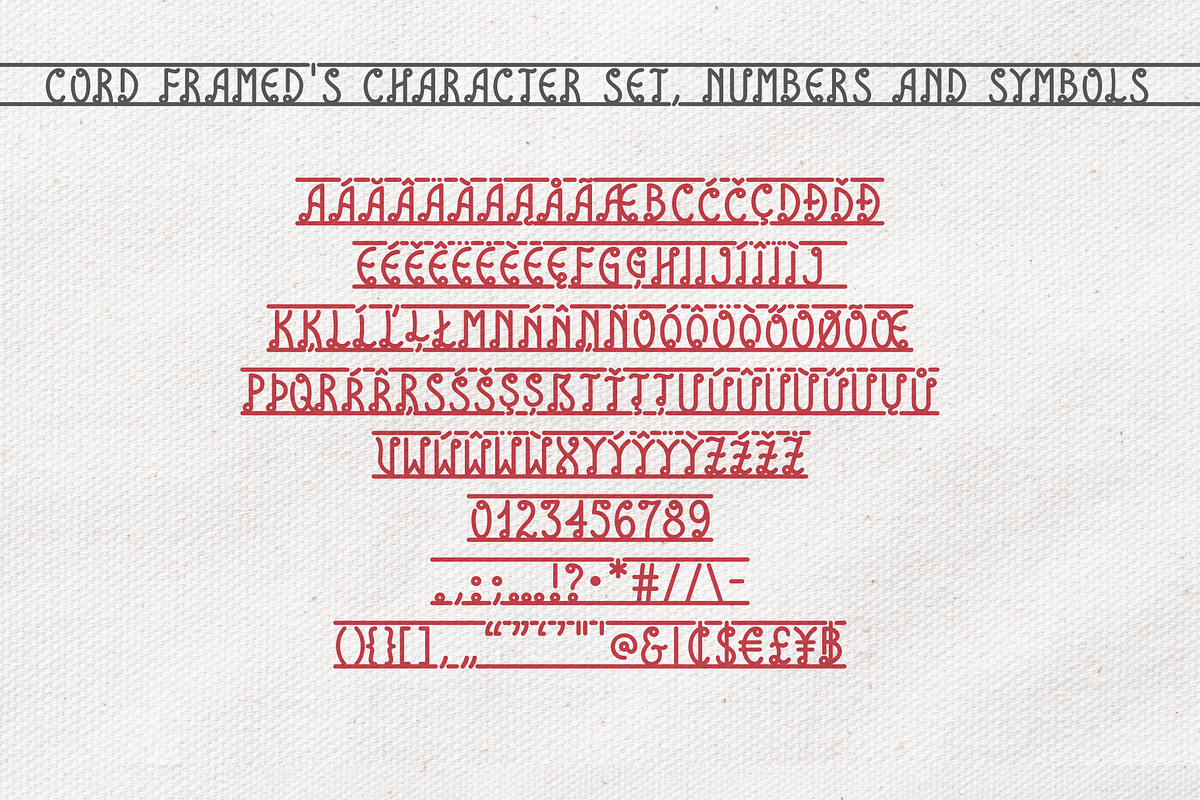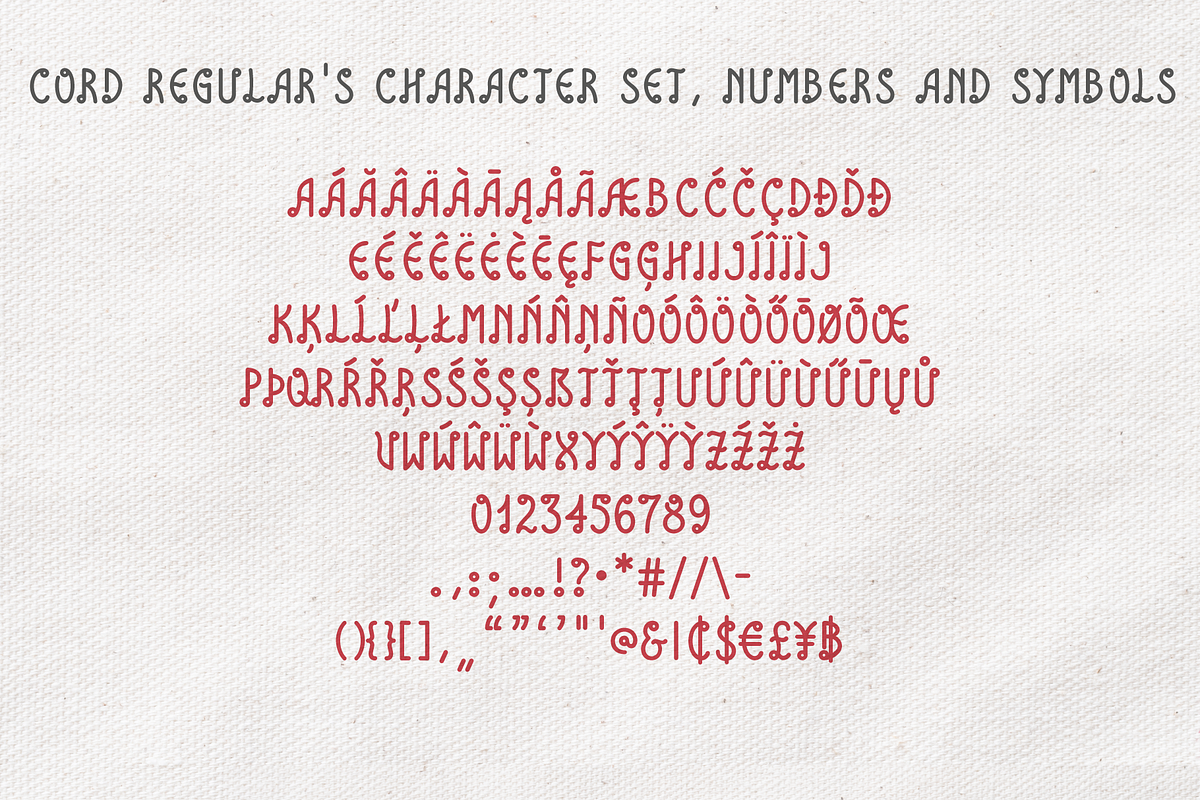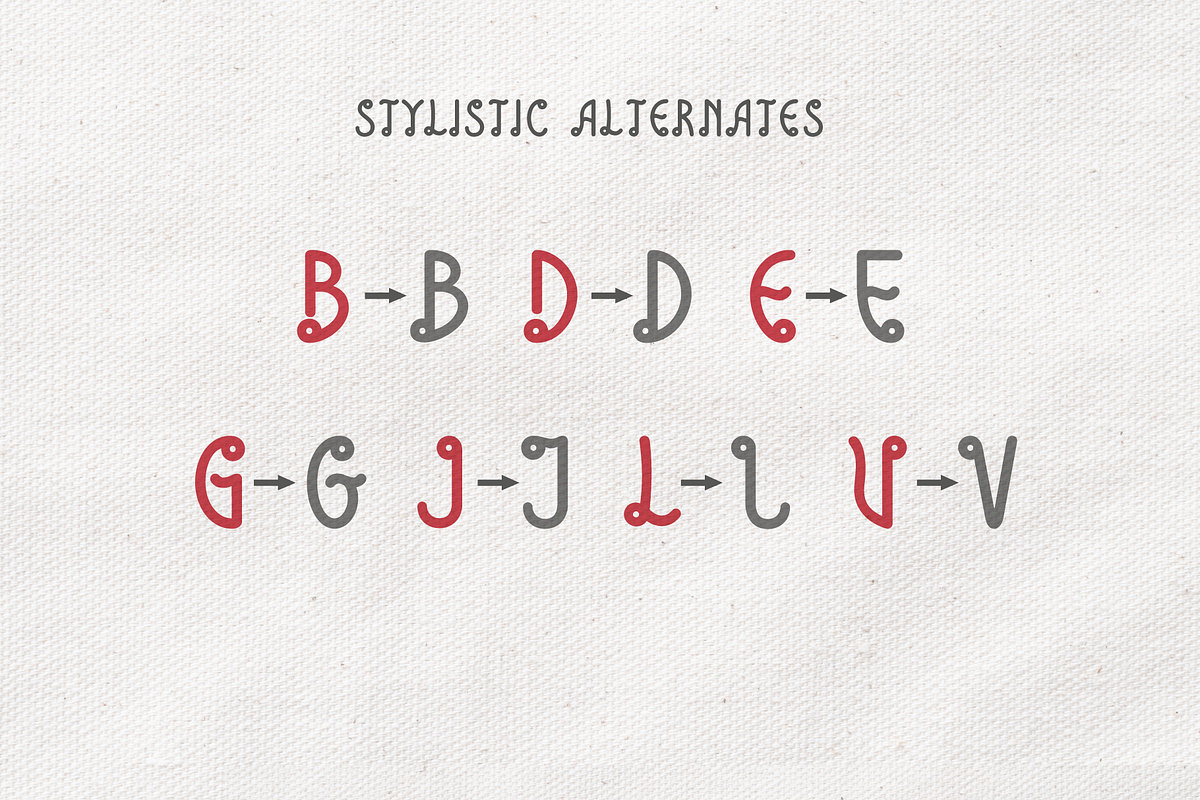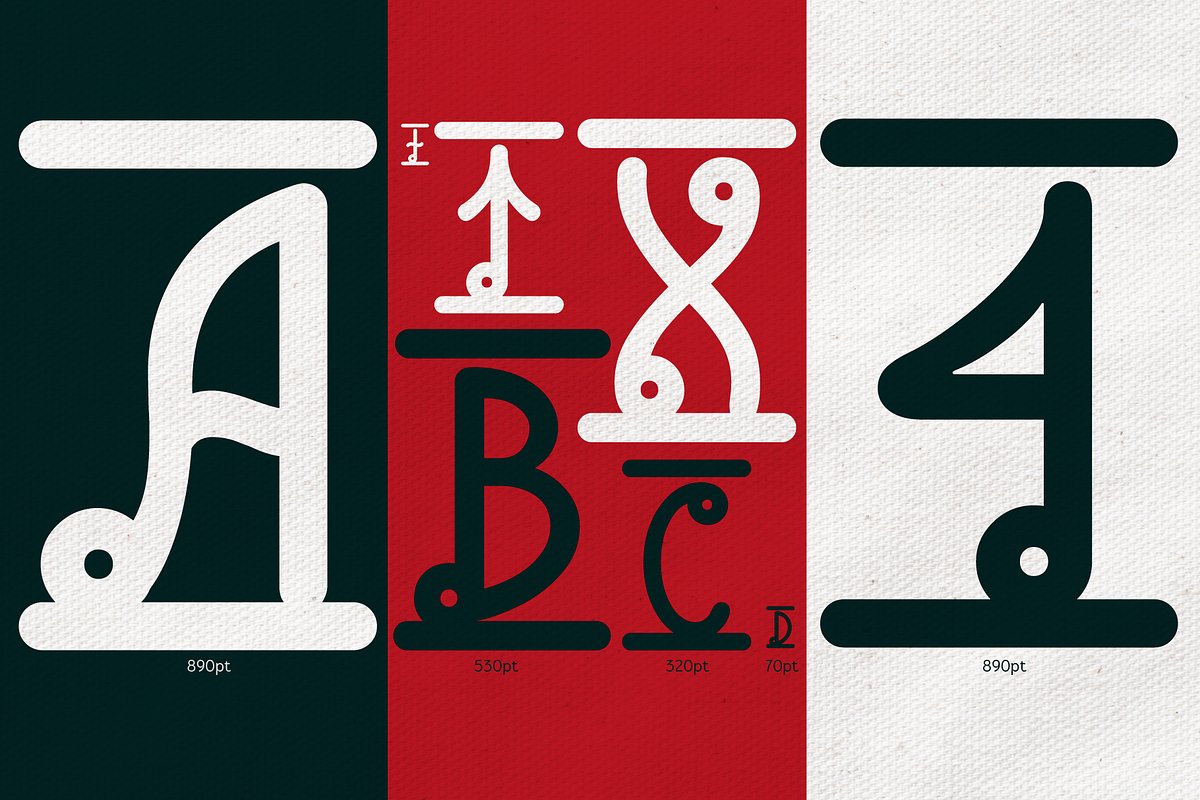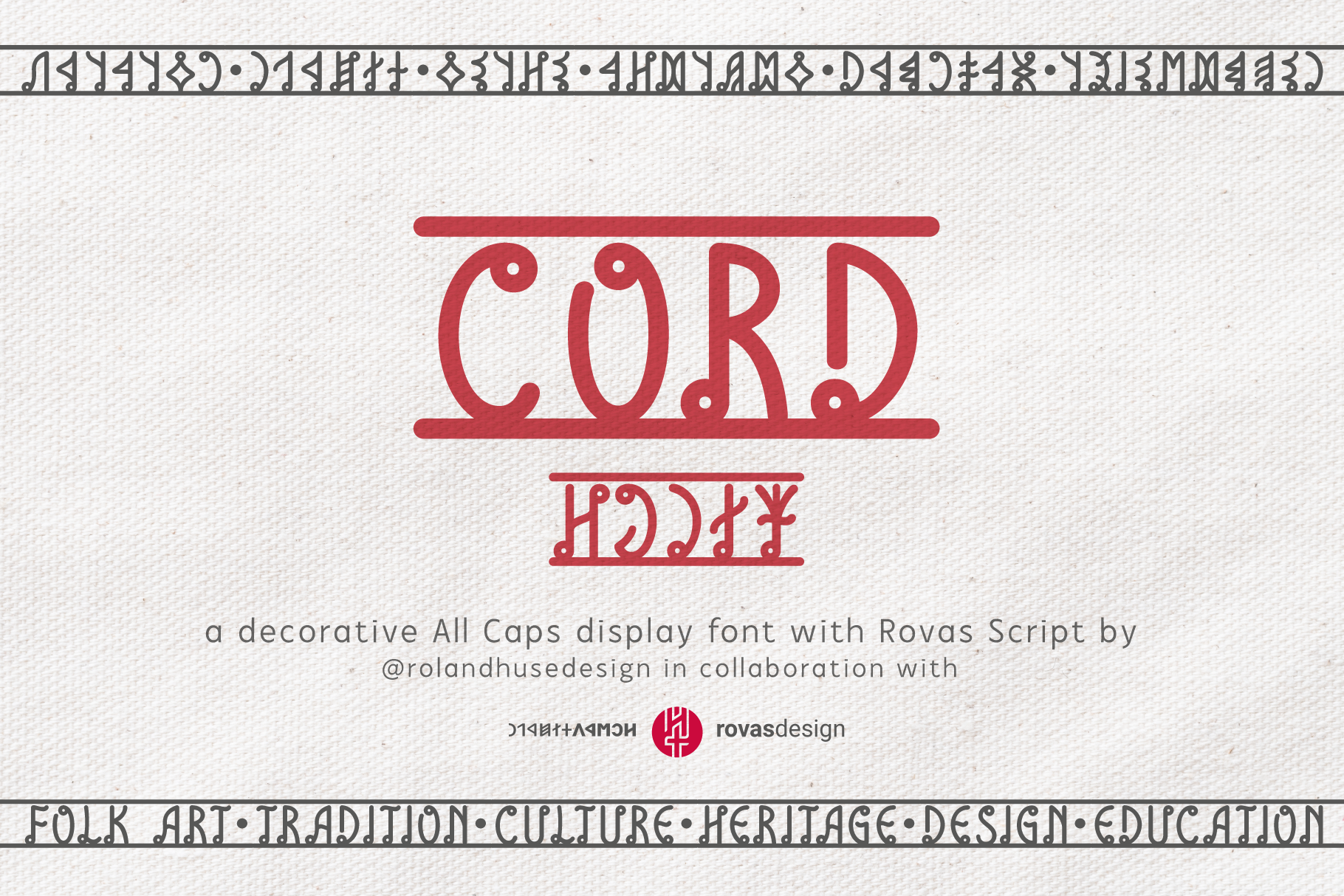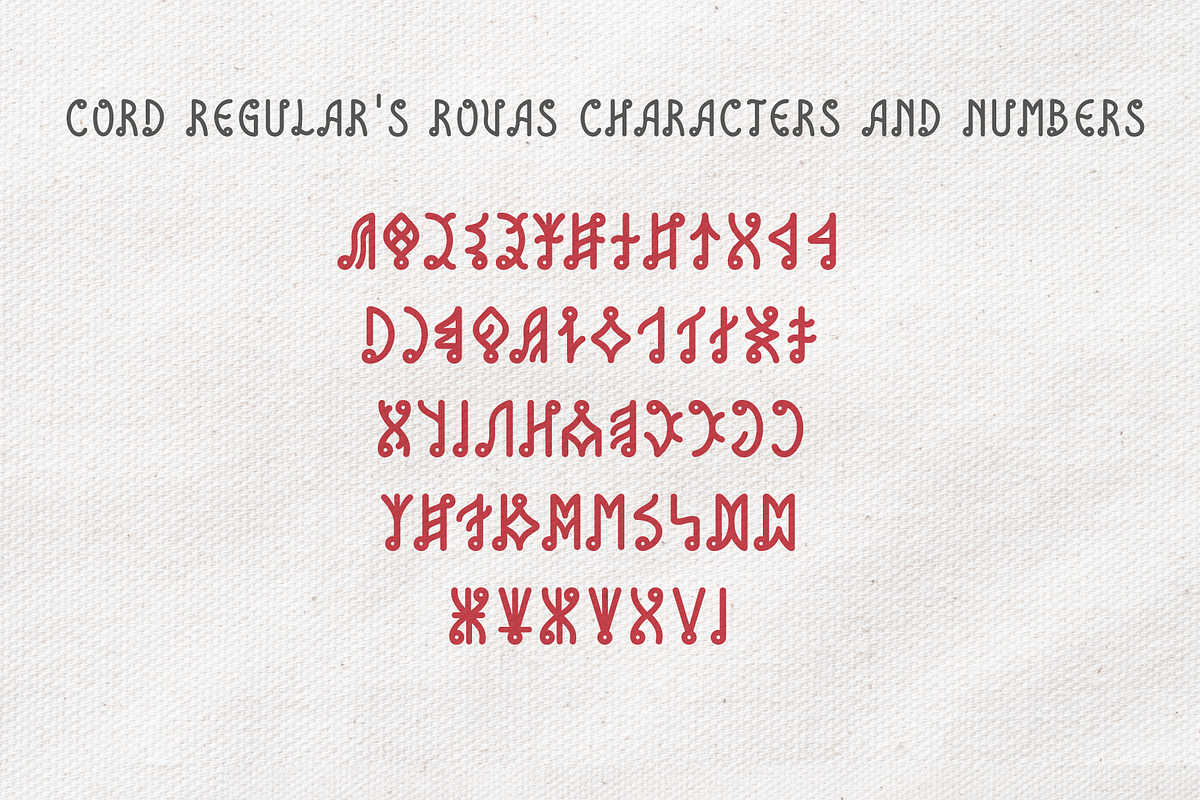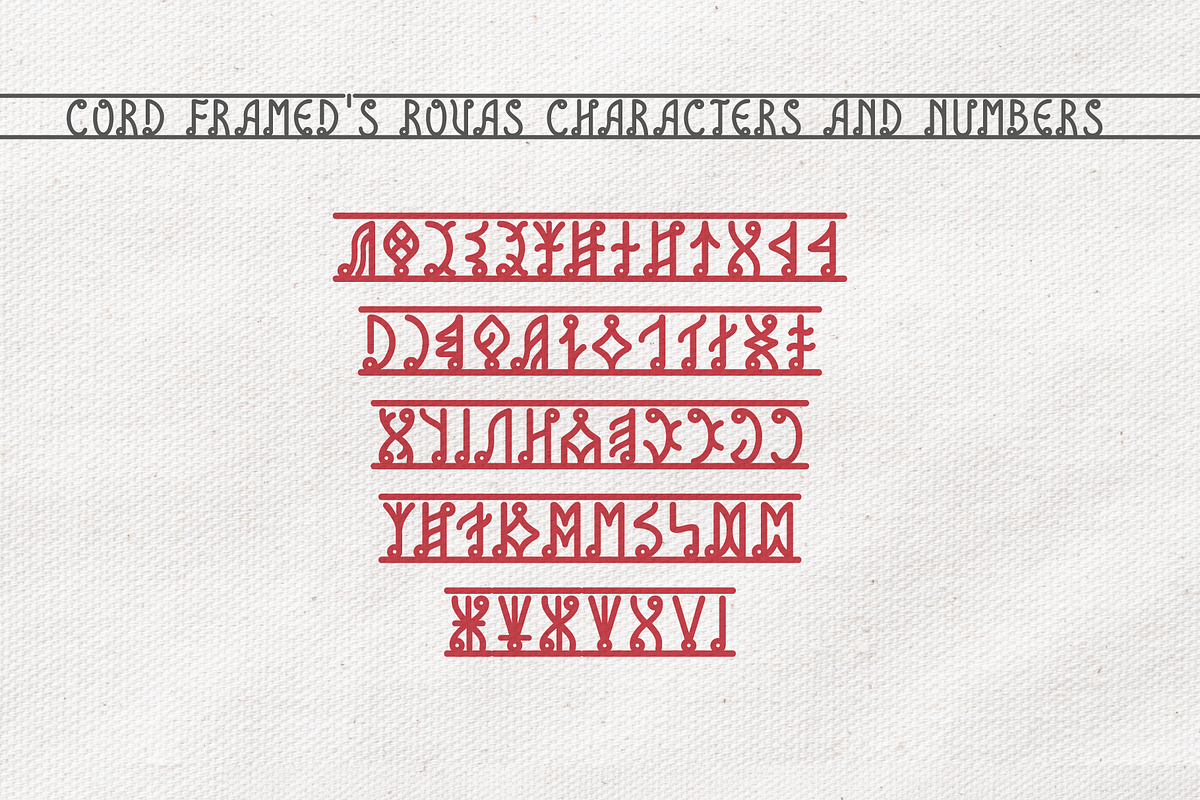
Cord Decorative Display Font
This font was originally a commissioned work for a tablecloth with a pattern like frame decoration with text in it.
The lettershapes were being designed based on the proper structure of Rovas characters, which were reinterpreted without decreasing legibility.
The Rovas alphabet was designed in the first place and the Latin characters were created based on the style of Rovas. Character set contains:
Western, Central and South Eastern European Latin characters basic symbols and punctuation Rovas alphabet Rovas number symbols and punctuation
Display font, best fit in larger sizes for souvenirs, folk art theme, ribbon like decorative texts and signages.